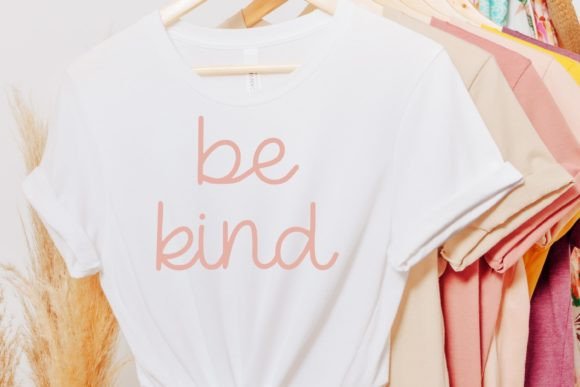
Lemonade & Sweet Tea Font
Lemonade & Sweet Tea is an attractive script font that brings sweetness and kindness in the middle of it. Use this font for various design ideas such as mugs, t-shirt designs, logo designs, and many more. This font is PUA encoded which means you can access all glyphs and swashes freely!